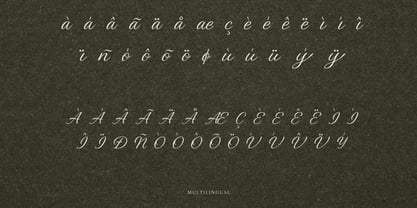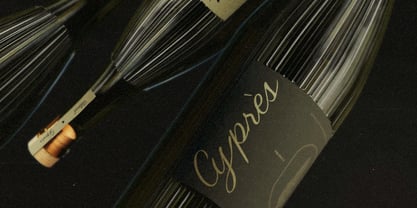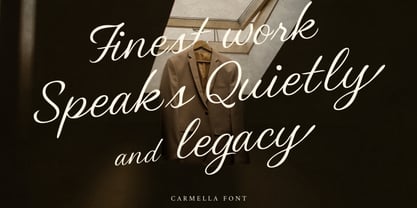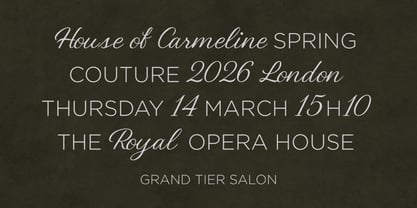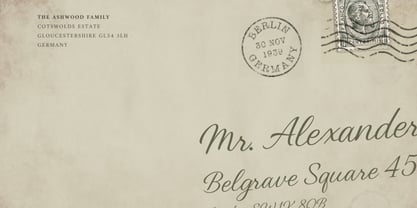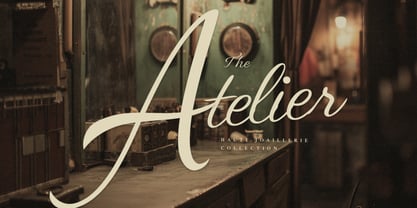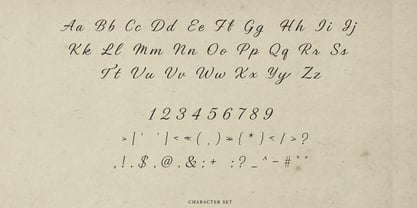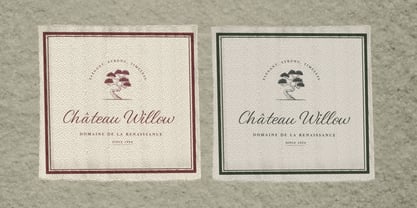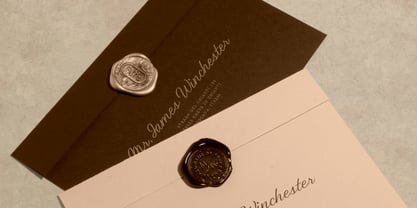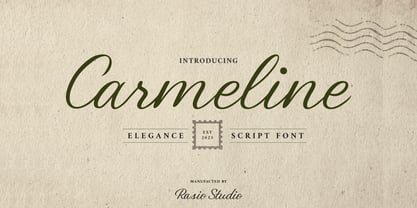
Carmeline
by Rasio Studio
The Carmeline Font Family was designed by Fajar Indra and published by Rasio Studio. Carmeline contains 1 styles. More about this family
Carmeline Elegance Script Font captures the timeless beauty of classic handwriting with a refined and graceful flow. Its smooth curves, thin strokes, and vintage charm create an elegant balance between sophistication and warmth. Designed for readability and artistic flair, Carmeline brings a nostalgic touch to modern design projects. The font includes uppercase and lowercase letters, numerals, punctuation, and multilingual support. Perfect for invitations, branding, quotes, packaging, or editorial layouts that need a luxurious and handwritten character.
Designers: Fajar Indra
Foundry: Rasio Studio